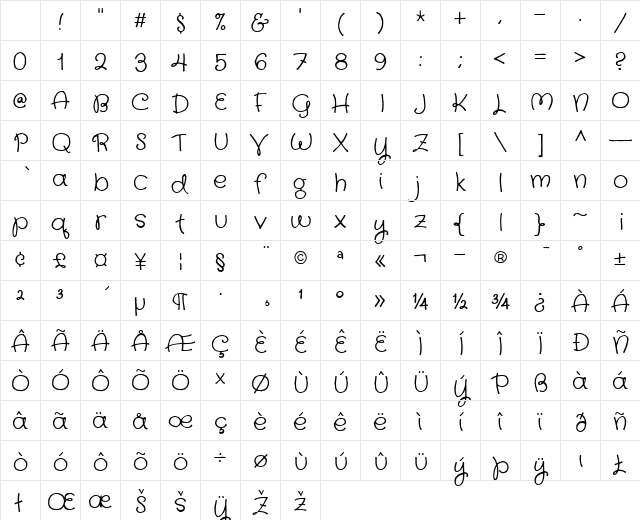
Complete Crafty Girls Regular glyph index. Displaying only characters natively supported by Crafty Girls Regular font.
Crafty Girls is a composed and adaptable typeface that performs quietly and consistently across a wide range of design contexts.
Pro Tip: Use Crafty Girls in both headline and body roles to test its range before committing to a single application.